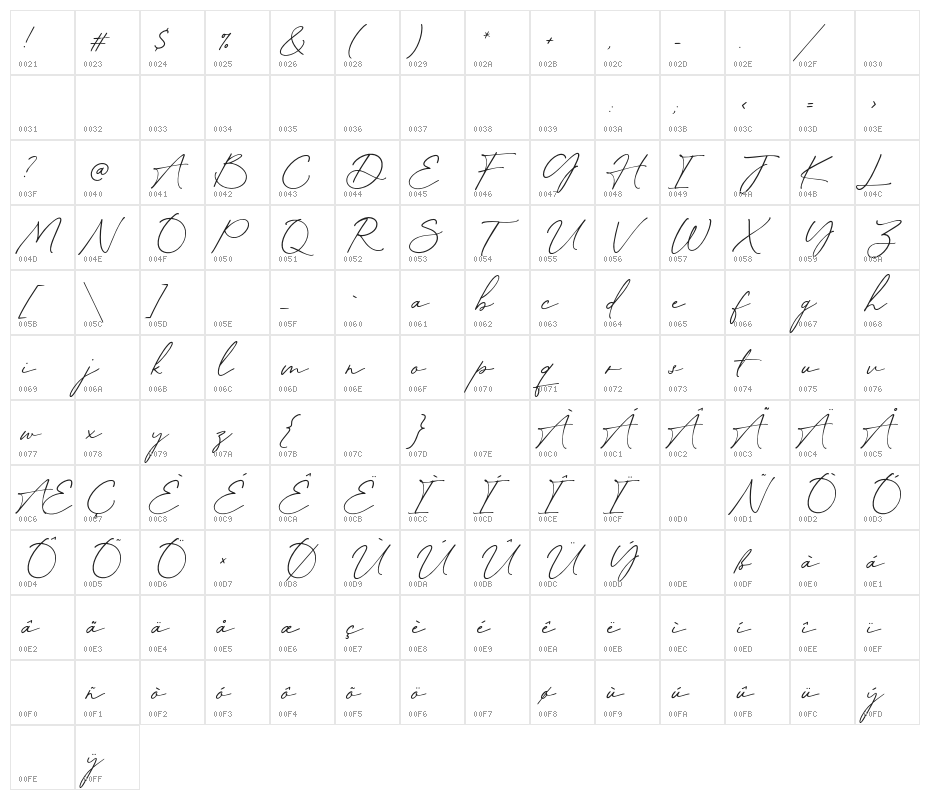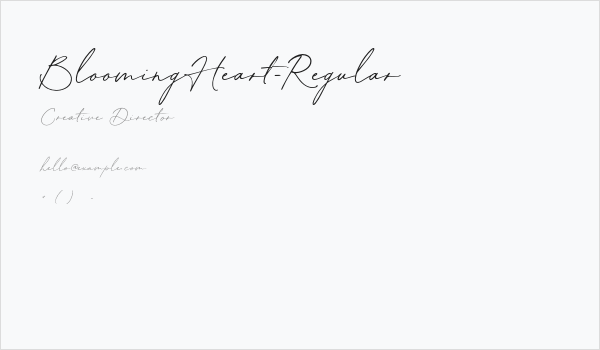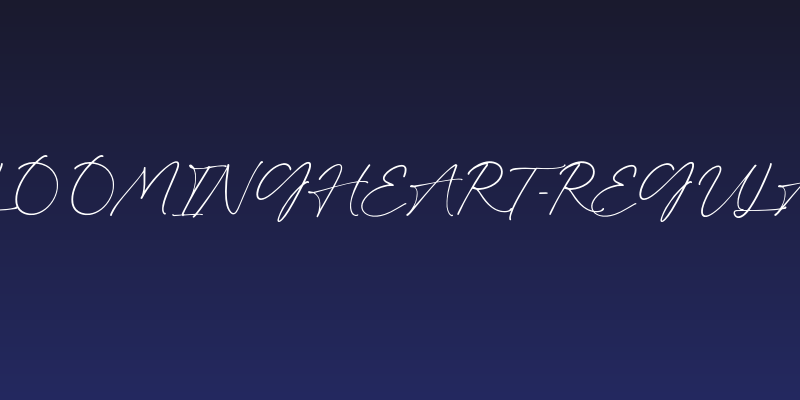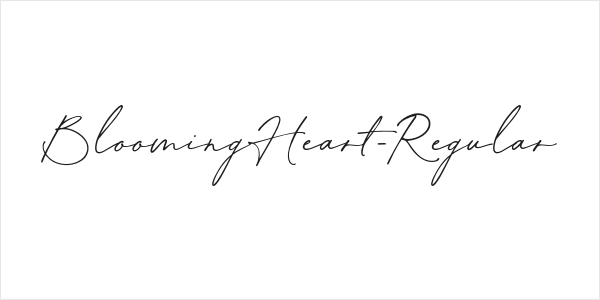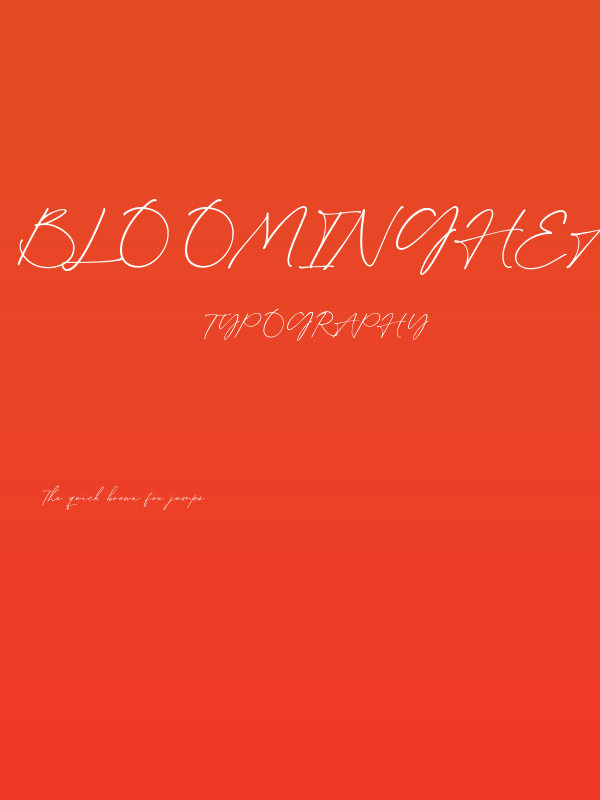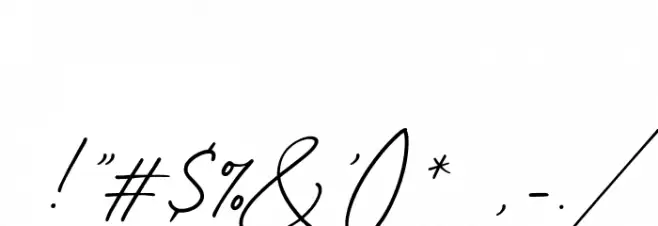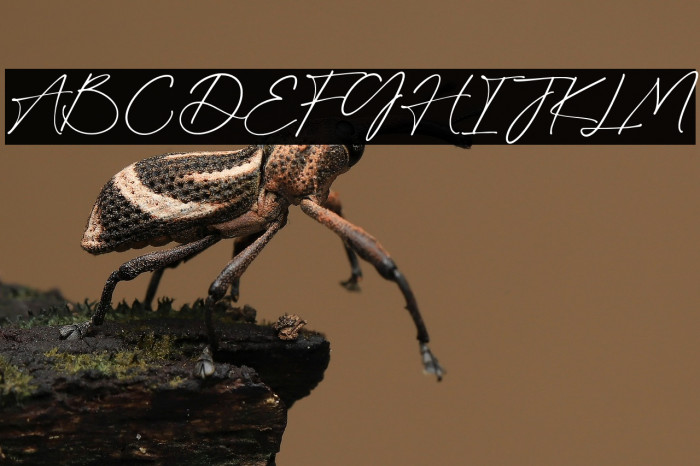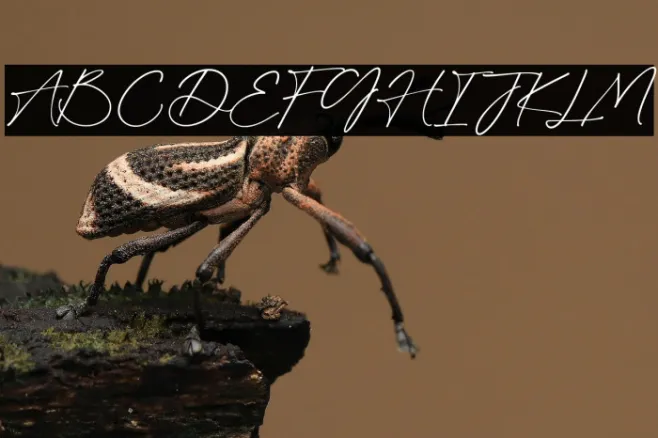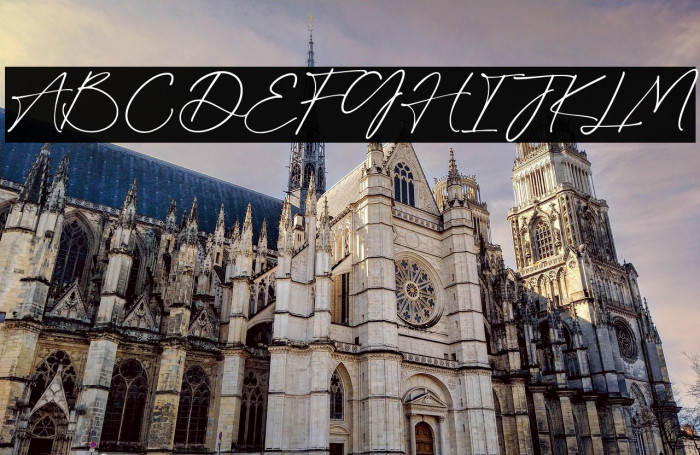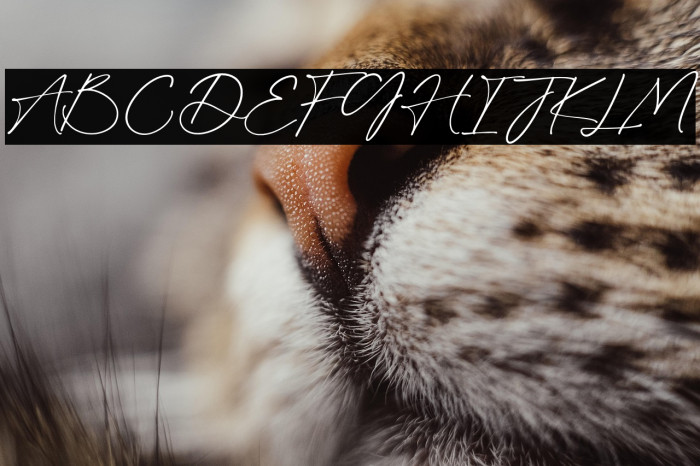
BloomingHeart-Regular Font
BloomingHeart-Regular Description
This elegant script font features flowing, interconnected letters that mimic the fluidity of natural handwriting. The uppercase letters are slightly more ornate, with delicate loops and curves, while the lowercase letters maintain a consistent, graceful style. The font's thin strokes and gentle slant add a touch of sophistication, making it ideal for projects that require a personal, handwritten touch. The special characters are seamlessly integrated, maintaining the overall aesthetic. This font exudes a sense of romance and elegance, perfect for creating an intimate and inviting atmosphere.
| Font Family | Blooming Heart |
| Overall Style | Elegant, Romantic |
| Use Case | Invitations, Personal notes, Branding |
| Proposed Projects | Wedding invitations, personal stationery, greeting cards, branding for luxury products, and romantic quotes. |